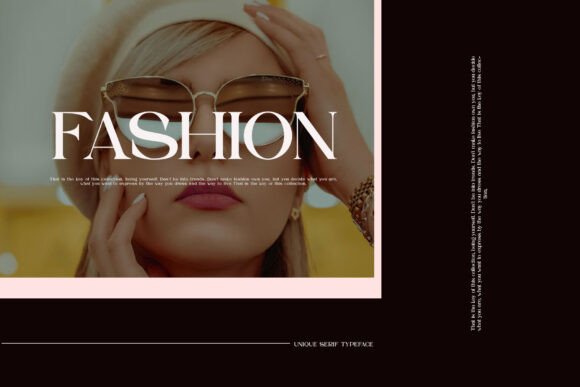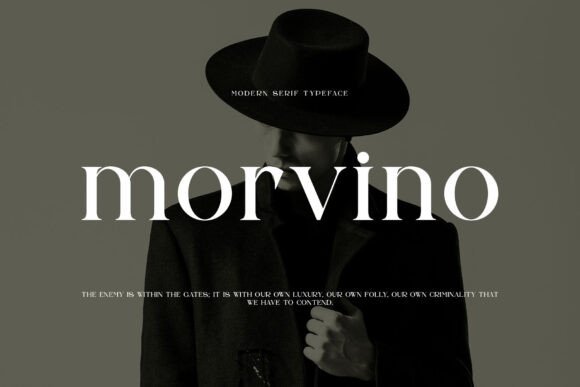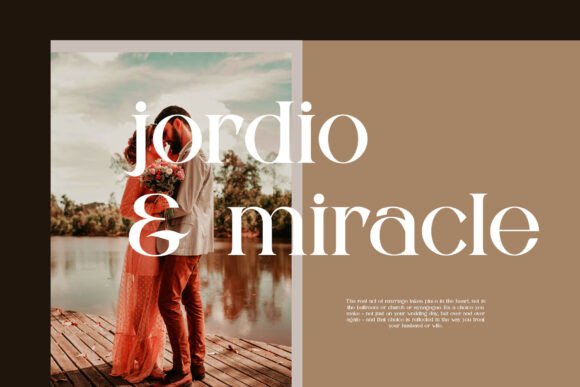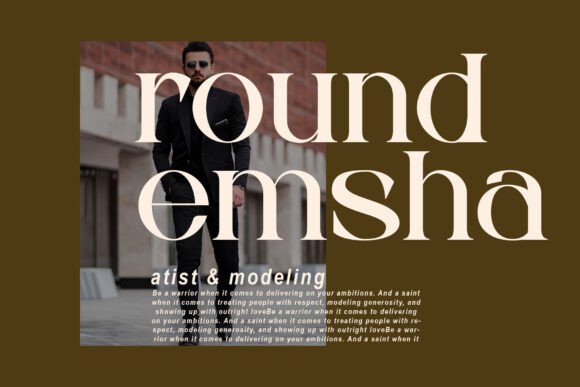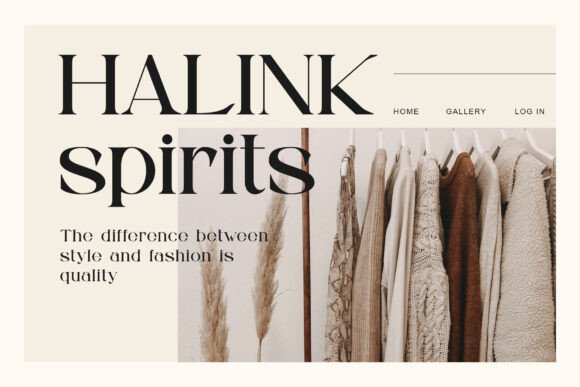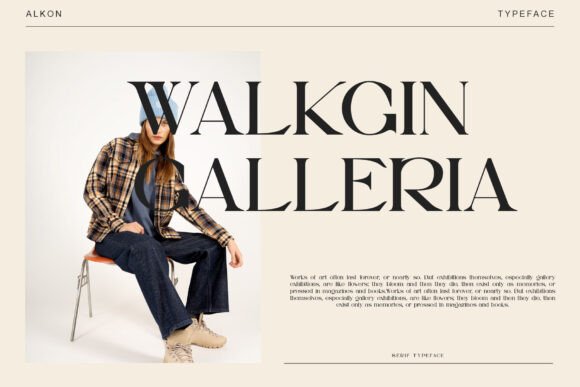
Introducing Alkon Font: Elevate Your Designs with Elegance and Class
In the world of typography, finding the perfect font that embodies both modernity and nostalgia can be a daunting task. However, look no further than Alkon Font, an elegant and classy serif typeface designed to transform your designs. Whether you’re crafting logos, magazines, or social media content, Alkon Font is the perfect companion to bring a touch of sophistication and style to your work.
The Perfect Blend of Modern and Nostalgic
Alkon Font strikes a delicate balance between modernity and nostalgia, making it an exceptional choice for designers seeking a font that can transcend time. Its sleek lines and refined features evoke a sense of contemporary elegance, while its classic serif structure pays homage to traditional typography. This harmonious blend allows Alkon Font to seamlessly adapt to various design contexts, from luxury branding to editorial design.
Designed for Versatility
One of the standout features of Alkon Font is its versatility. This font is not just a simple typeface; it’s a design solution that can be applied across multiple platforms. Imagine having a font that can effortlessly move from a logo design to a magazine layout, and then to a social media post, all while maintaining its elegance and class. Alkon Font is carefully crafted to ensure that your designs look cohesive and sophisticated, regardless of the medium.
Perfectly Paired and Ready to Use
For designers, one of the most significant advantages of Alkon Font is that it comes perfectly paired and ready to use. This means you can dive straight into your design projects without spending hours agonizing over font pairing. The careful consideration that has gone into creating Alkon Font ensures that it complements a wide range of design elements, saving you time and boosting your productivity.
A Touch of Elegance, Style, Class, Chic, and Modernity
If you’re on the hunt for a font that can infuse your designs with a sense of elegance, style, class, chic, and modernity, then Alkon Font is the answer. This font is meticulously designed to add a layer of sophistication to any design project. Whether you’re working on a high-end brand identity, a fashion magazine, or a stylish social media campaign, Alkon Font provides the perfect typographic solution.
Why Choose Alkon Font?
- Elegant and Classy: Alkon Font boasts an elegant and classy appearance, ideal for designs that require a sophisticated touch.
- Modern and Nostalgic: Its unique blend of modernity and nostalgia makes it versatile for a wide range of design projects.
- Versatile: Suitable for logos, magazines, social media, and more, making it a valuable addition to your font library.
- Ready to Use: Comes perfectly paired, saving you time and effort in font selection and pairing.
- Enhances Design: Adds a touch of elegance, style, class, chic, and modernity to your designs, ensuring they stand out.
Alkon Font is more than just a typeface; it’s a design companion that can elevate your projects to new heights of elegance and sophistication. With its perfect blend of modernity and nostalgia, versatility, and ready-to-use design, Alkon Font is an indispensable tool for designers and crafters looking to make a lasting impression. Whether you’re aiming to create timeless logos, captivating magazines, or engaging social media content, Alkon Font is your gateway to creating designs that exude class, style, and modernity.